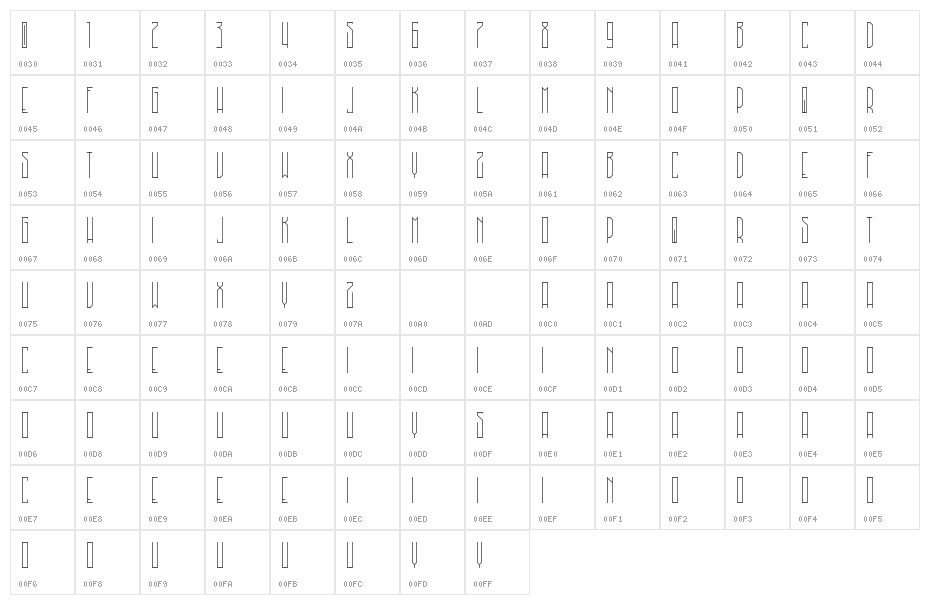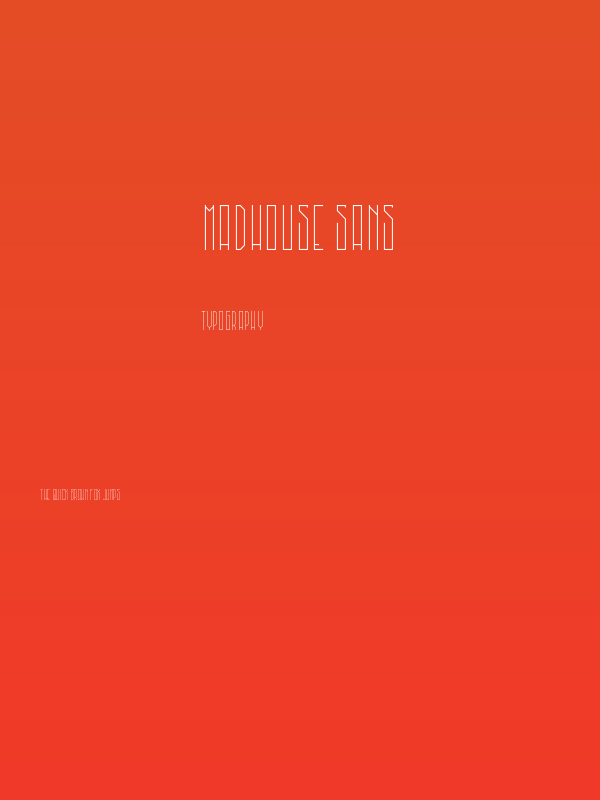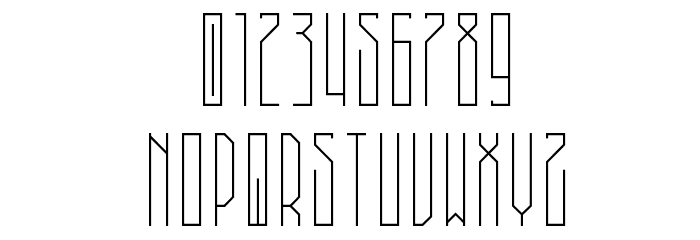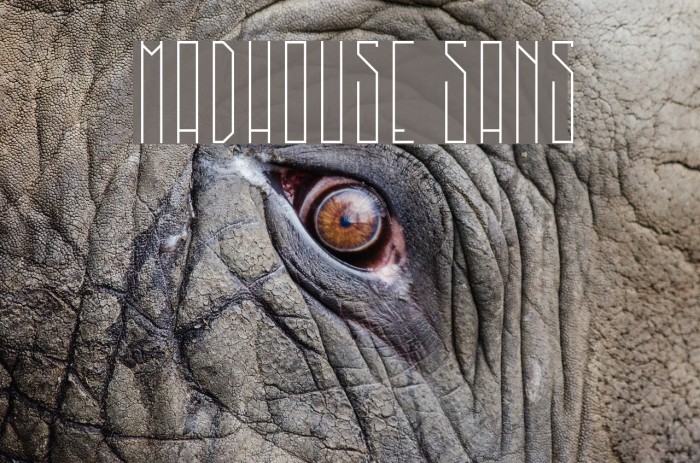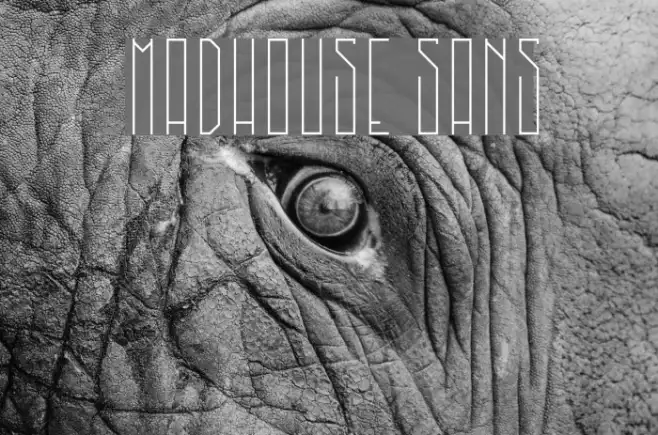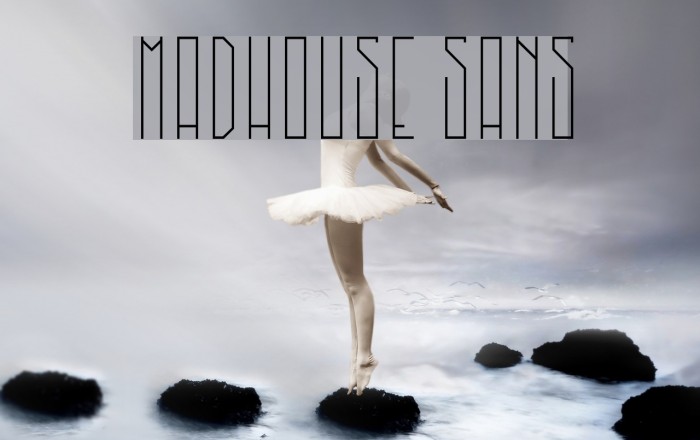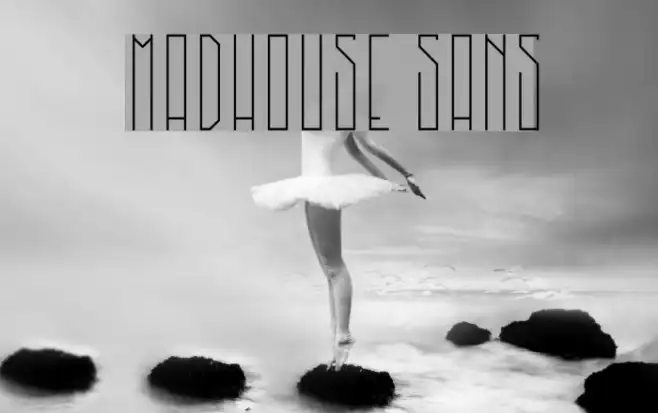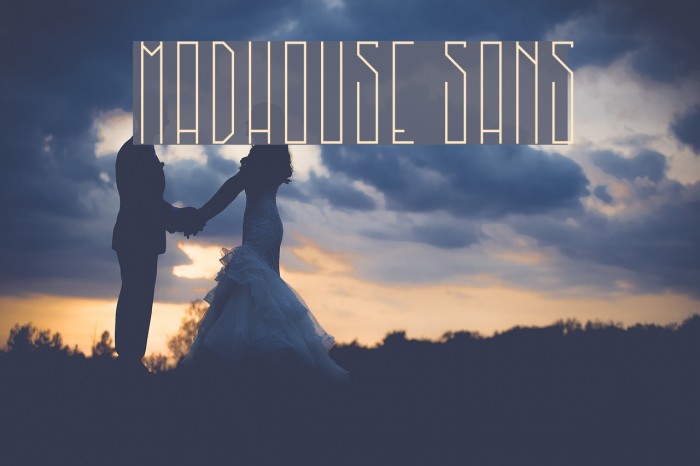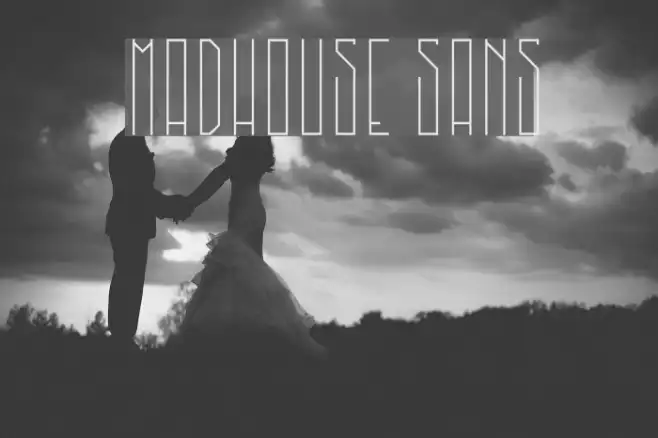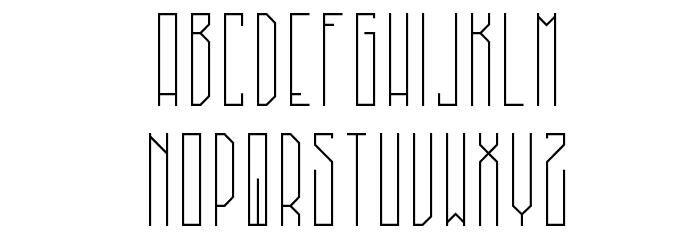
MadHouse Sans Font
This font features a unique, geometric design with elongated, narrow characters that create a striking visual impact. The letters are composed of straight lines and sharp angles, giving them a modern and edgy appearance. The uppercase and lowercase letters maintain a consistent height, contributing to a uniform look across the text. The numerals and special characters follow the same design principles, ensuring a cohesive style throughout. The overall aesthetic is minimalist yet bold, making it suitable for projects that require a contemporary and distinctive typeface.
Vladimir Fedotov